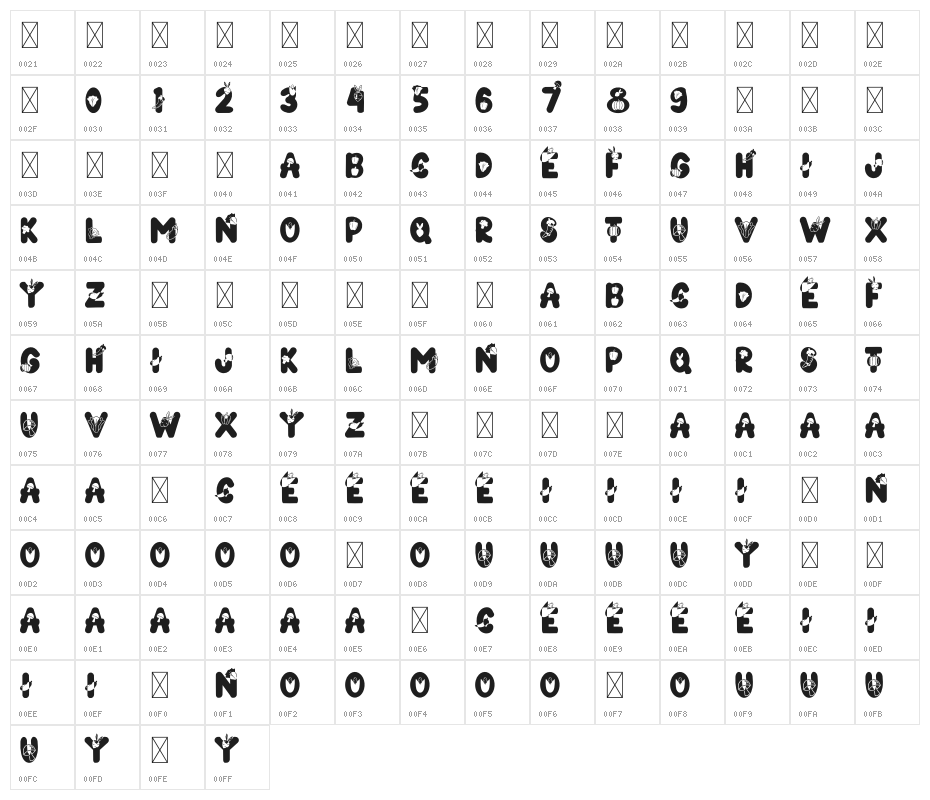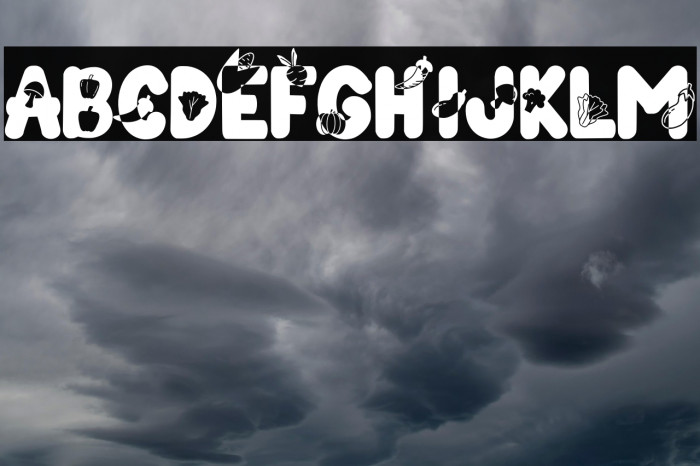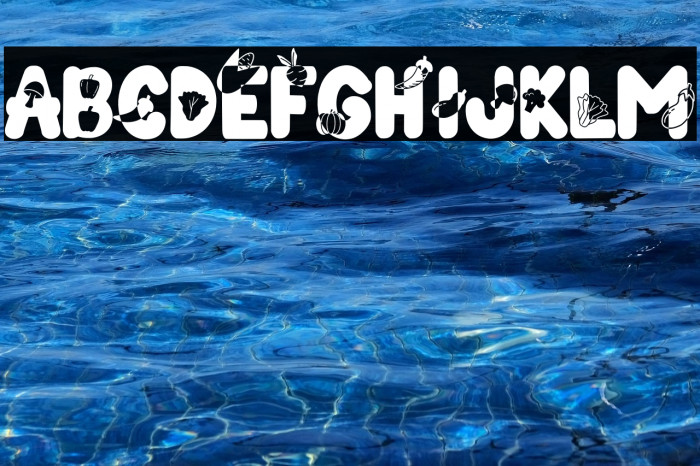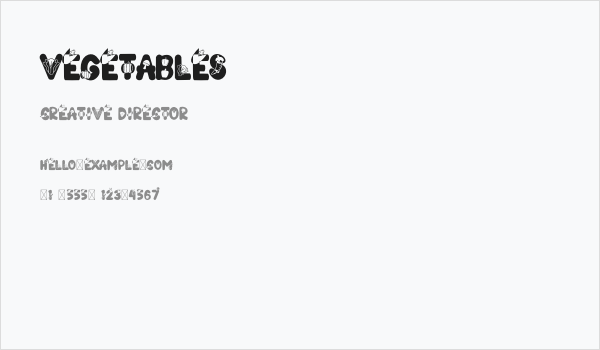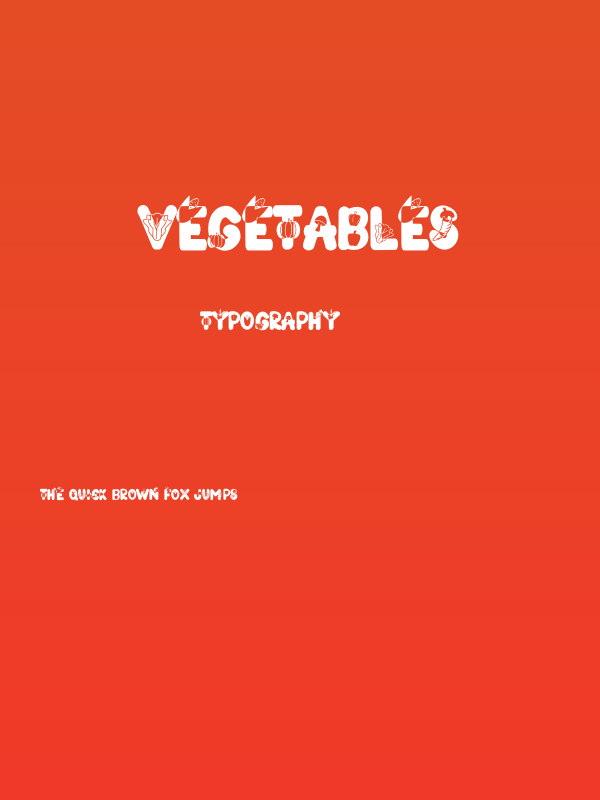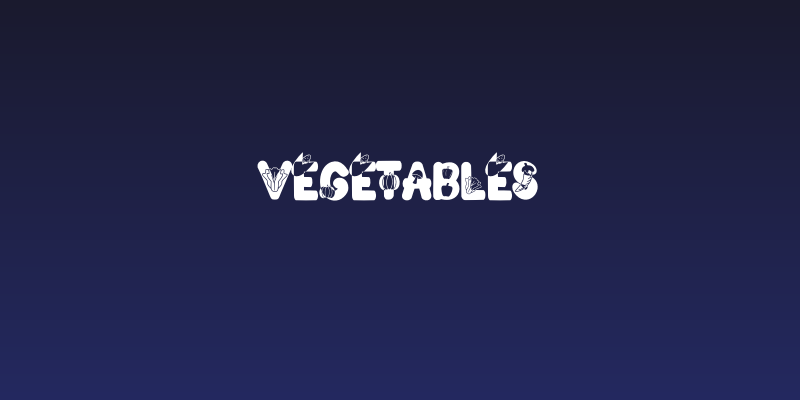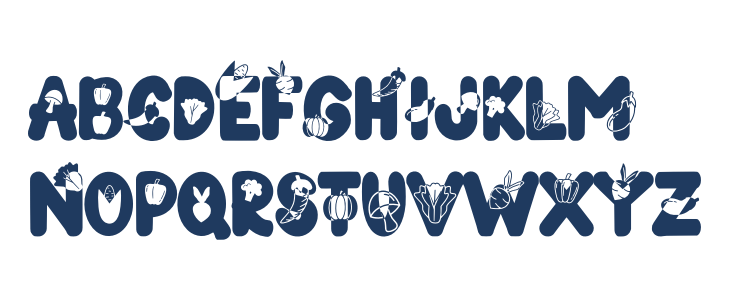
VEGETABLES Font
VEGETABLES Description
This playful and decorative font features bold, rounded characters adorned with various vegetable illustrations. Each letter and number is uniquely paired with a different vegetable, adding a whimsical and organic touch. The design is eye-catching and perfect for projects that require a fun and lively aesthetic. The characters are evenly spaced, ensuring readability while maintaining their decorative appeal. This font is ideal for creative projects that aim to convey a sense of freshness and vitality.
| Proposed Projects | Ideal for children's books, organic food branding, farmer's market posters, and eco-friendly product packaging. |